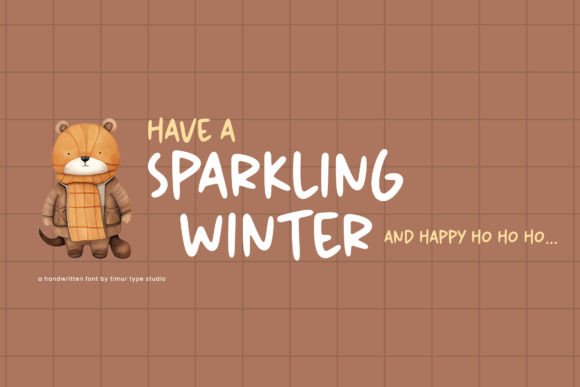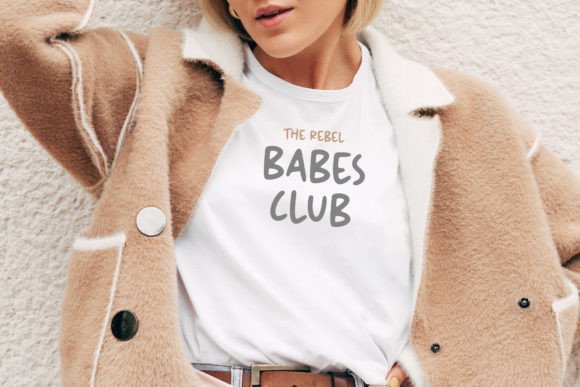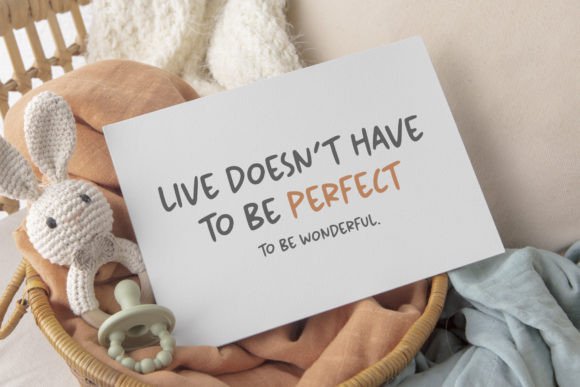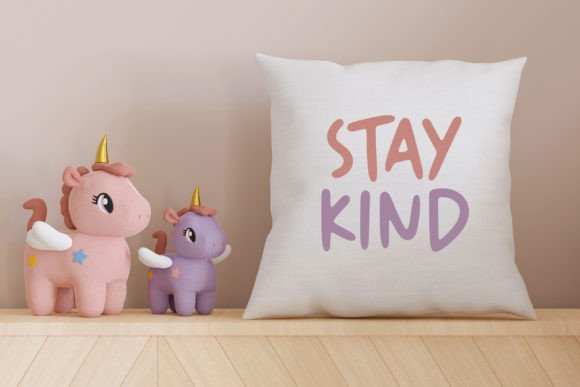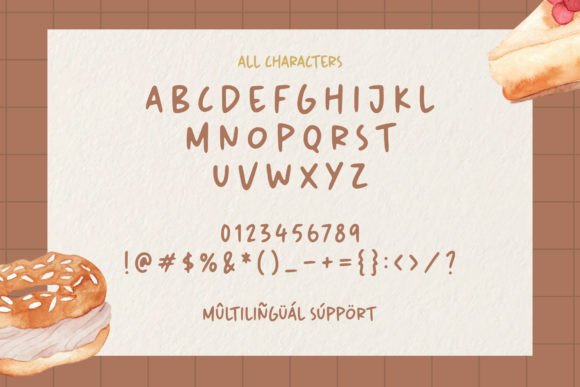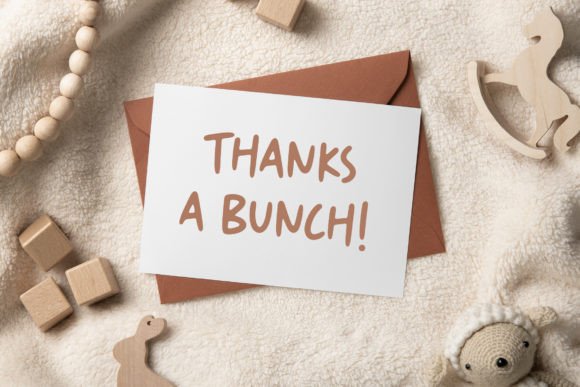
Introduction to Pastry Paradise Font
Pastry Paradise fun handwritten font display features lines with smooth and unique edges, giving it a distinctive look.
This font resembles handwriting, with attention to detail and beautiful strokes in each line, this font adds a touch of sophistication and distinctive style to any design or text it is applied to .
Key Features of Pastry Paradise Font